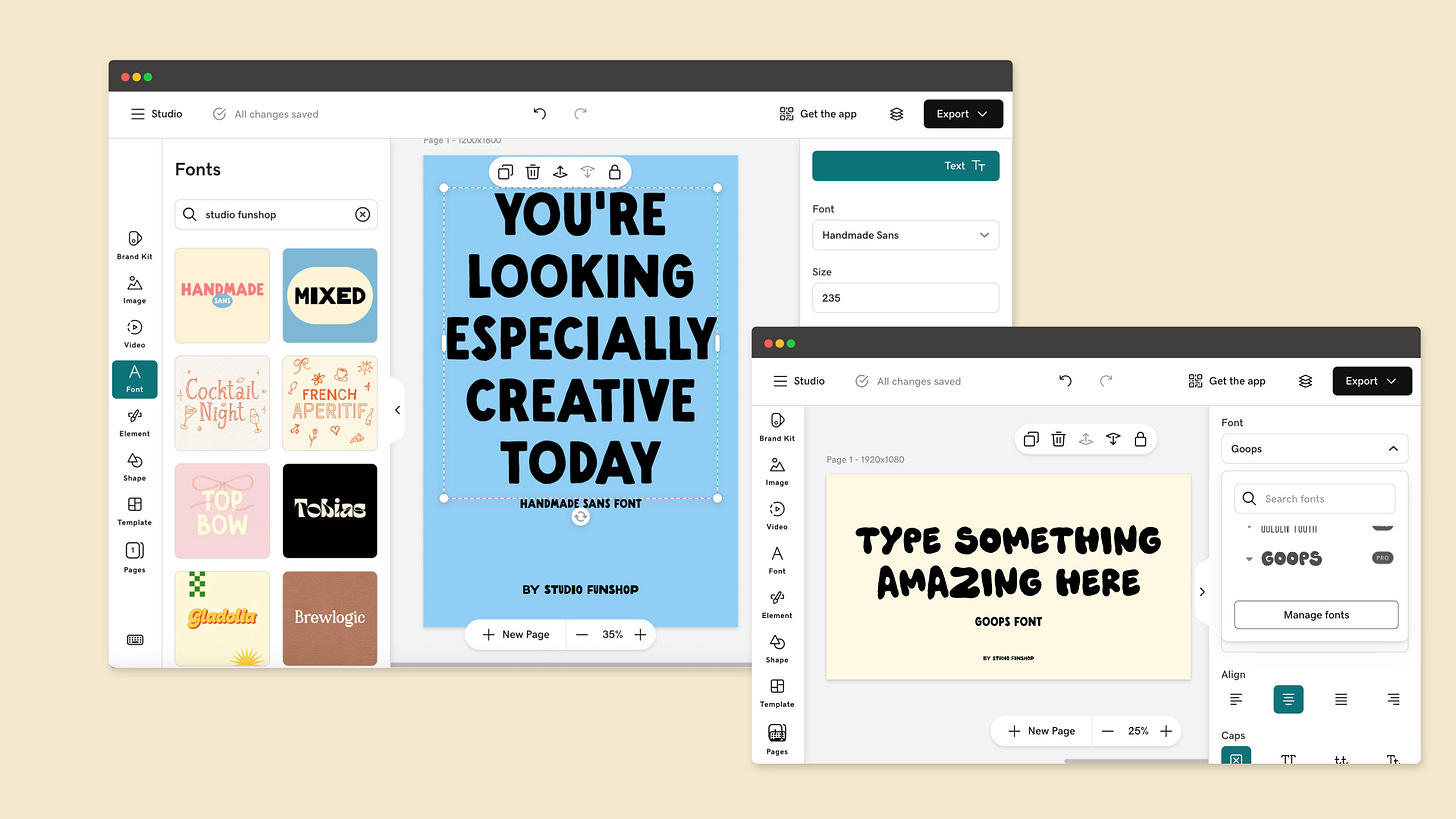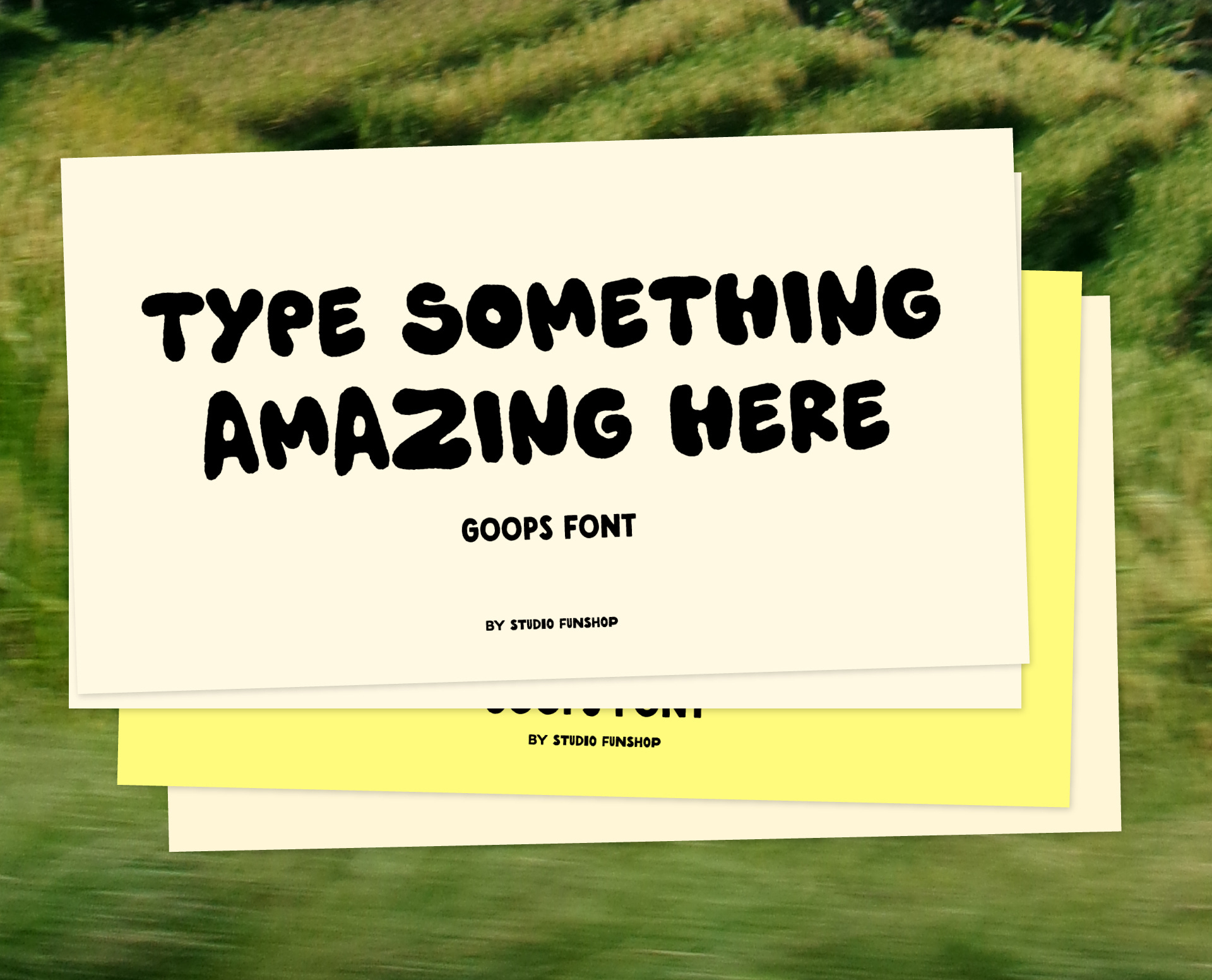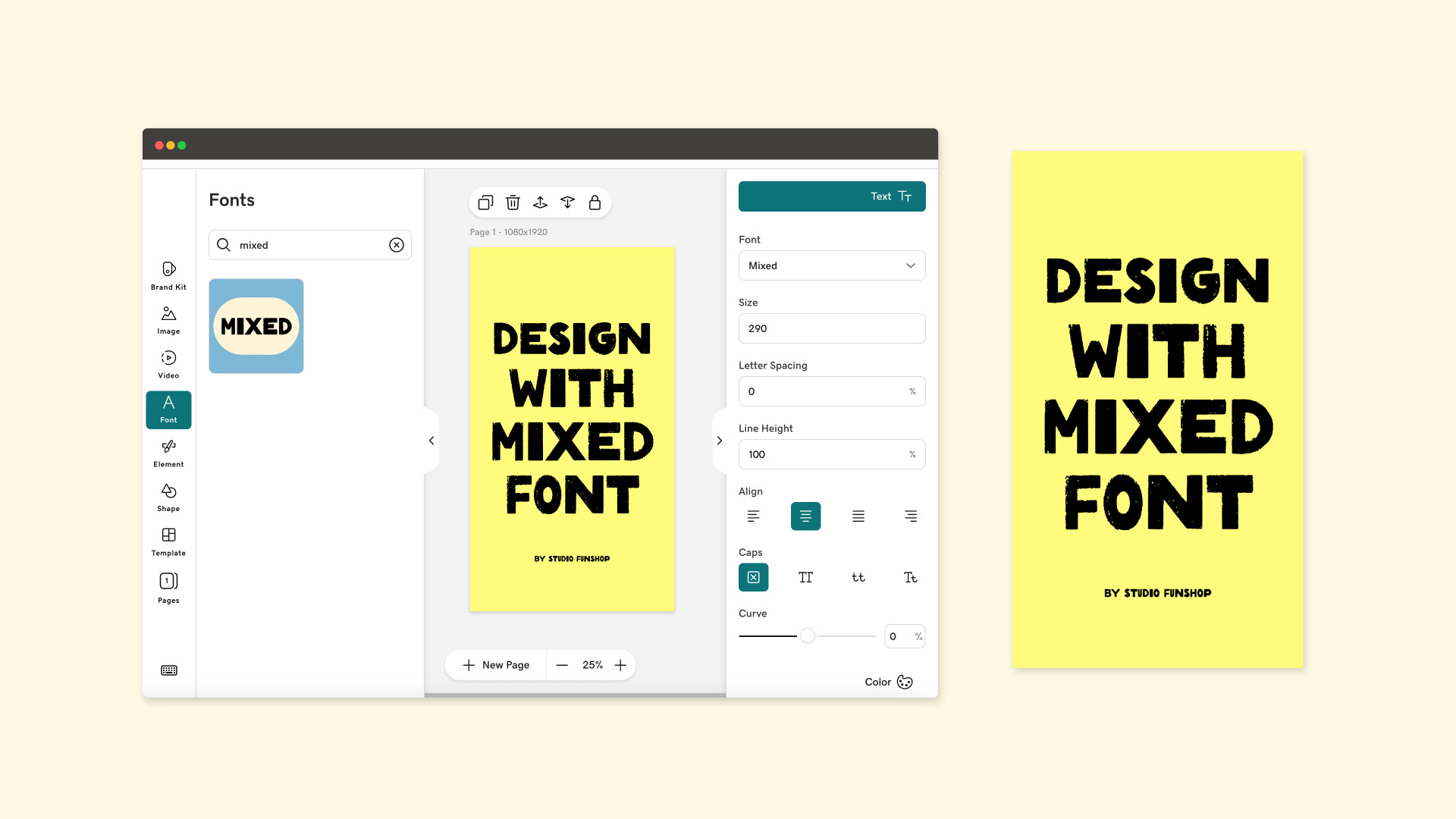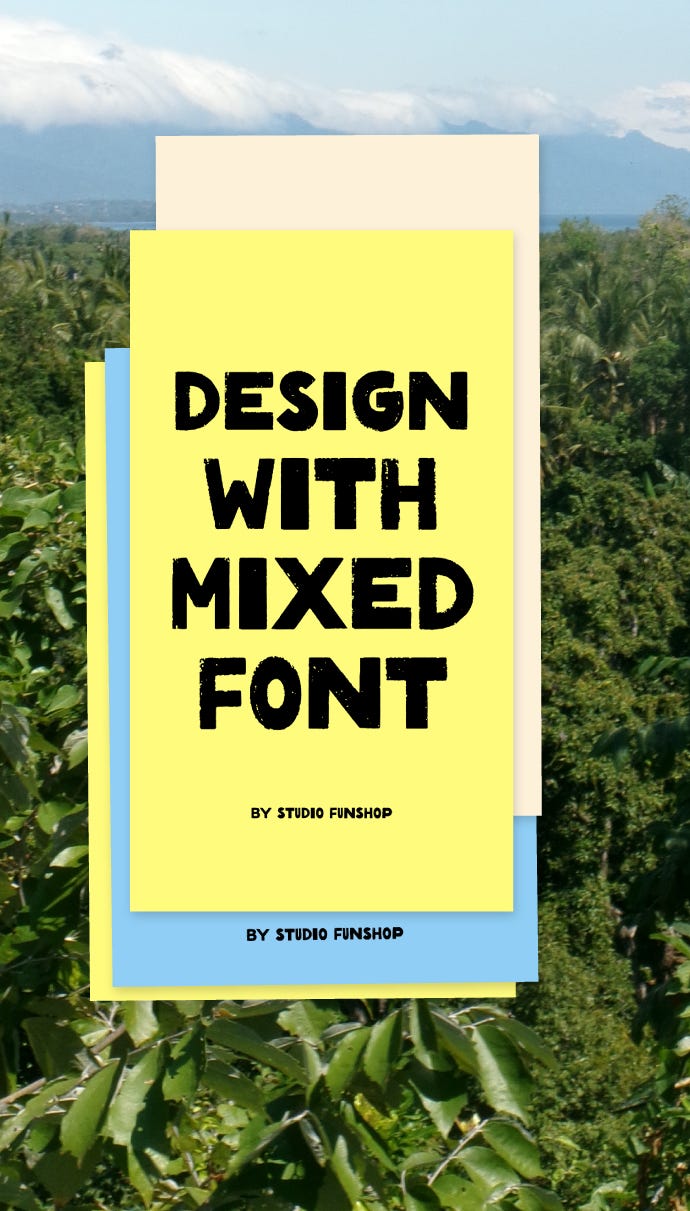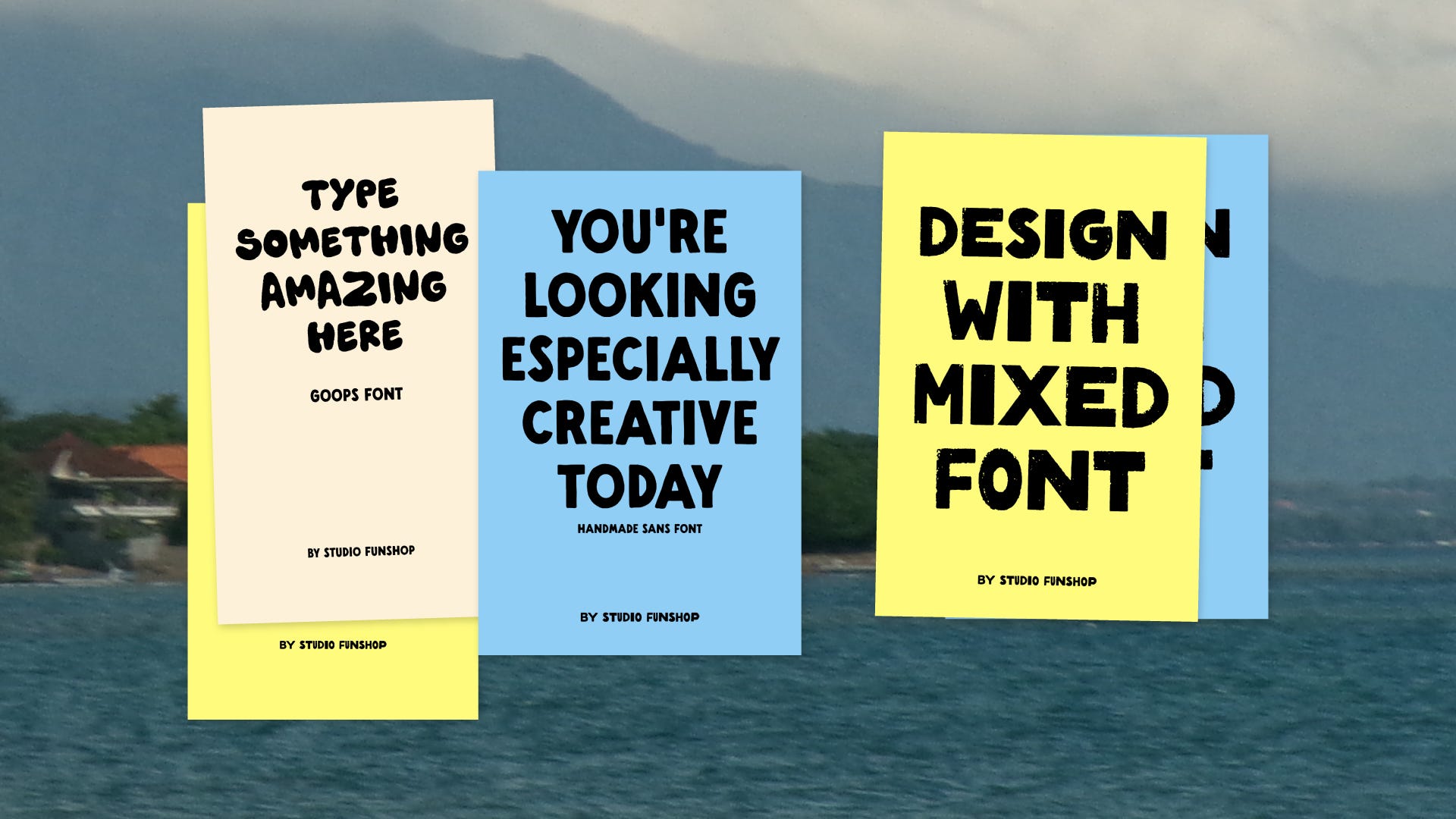
Fonts in Use: GoDaddy Studio x Studio Funshop
I’m excited to share something a little different this week. GoDaddy reached out to me a while back about a custom font license so they could include a few Studio Funshop fonts inside GoDaddy Studio.
GoDaddy Studio is their design platform and app, where creators and small businesses can create professional visual content, like social media posts, logos, videos, and marketing materials.
And now, three Studio Funshop fonts are officially available inside the app.
Here’s a quick look at them:
Handmade Sans - Retro Hand-lettered Font
This one is a hand-drawn sans inspired by all the good vintage things: old labels, imperfect printing, and retro film titles. It works really well for logos, display type, quotes, and anything that needs a handmade edge.
Goops - Y2K inspired Handwriting Font
Goops is my playful, Y2K-inspired bubble font. It has a bit of texture, some goopy charm, and lots of personality. Great for branding, stickers, art, quotes, and fun display moments.
Mixed - Bold Distressed Font
Mixed is an uppercase, extra-textured hand-lettered font inspired by distressed retro signs and imperfect printing. It’s great for headlines, logos, posters, and anything that needs a bold, handmade look.